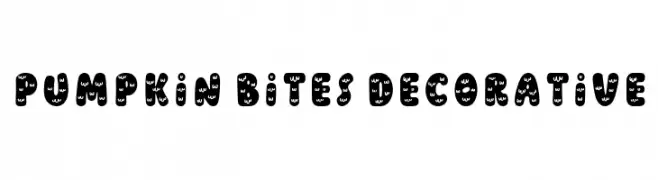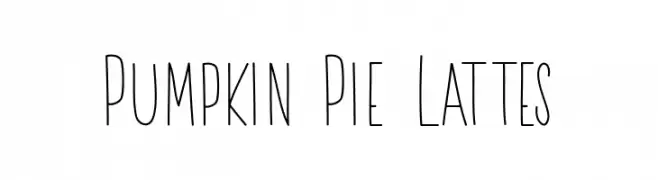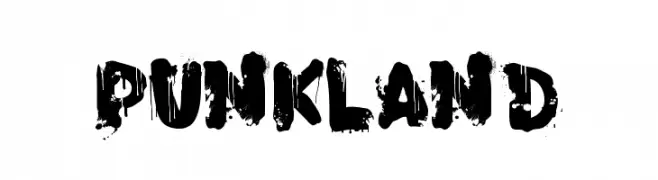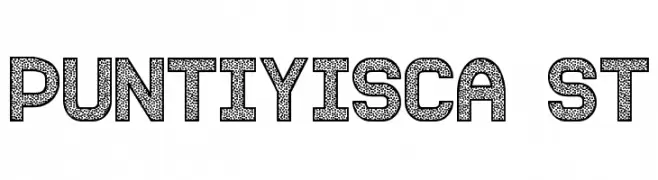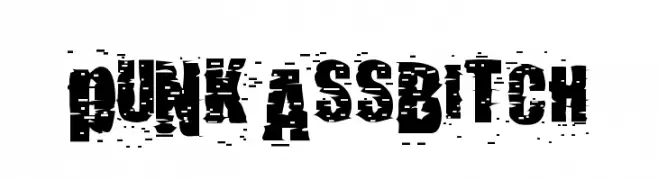
A bold, decorative font with a playful dripping effect.
A playful, handwritten font with tall, narrow letters and a casual style.
A bold, grungy font with a distressed, paint-splattered effect.
A bold, grungy font with a rebellious, punk-inspired aesthetic.
A bold, decorative font with a stippled texture, perfect for creative projects.